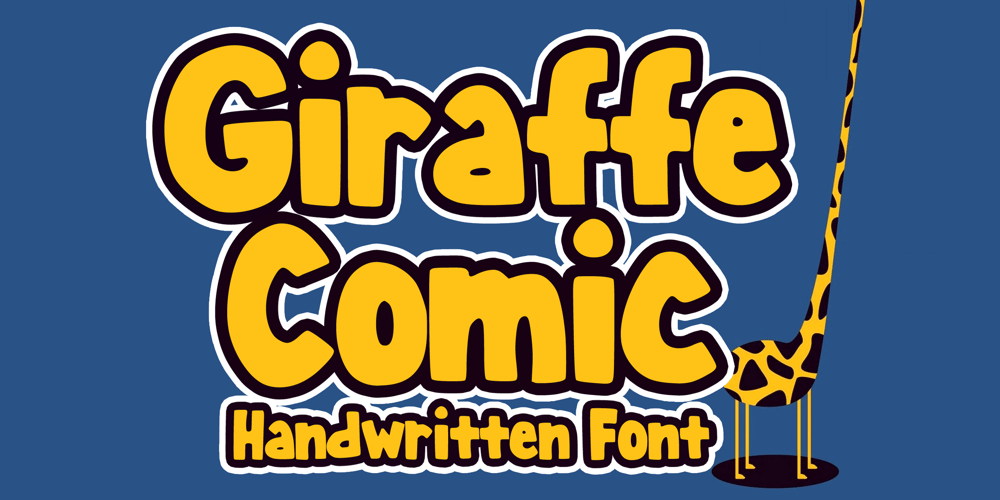
Giraffe Comic
Giraffe Comic font
Giraffe Comic Font Family was designed by Gabriel Valentinus and published by Mvmet. Giraffe Comic contains 1 styles and family package options. Giraffe Comic is a bold, cute and playful display font. It will elevate a wide range of design projects to the highest level. You can use this font for many design ideas such as stickers, t-shirt designs, amazing logo designs, magazine or book covers, comics, cartoon drawings, and many more. This font will add a super cool touch to your designs!